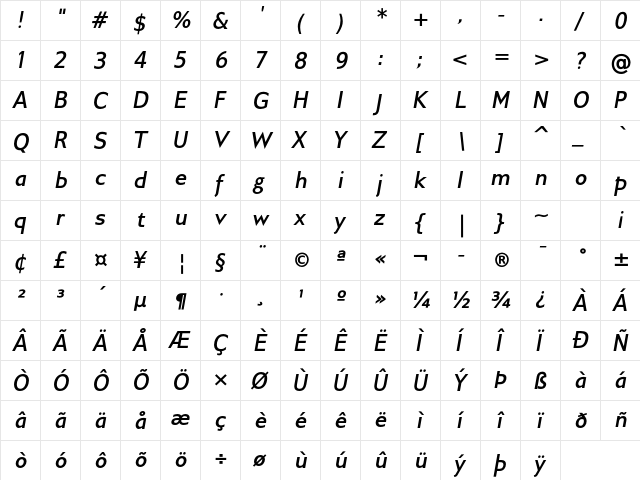
Gillius ADF Bold Italic
Design Context for Gillius ADF Typeface
Gillius ADF offers clean, dependable letterforms without strong stylistic allegiance, making it a practical choice for designers who need flexibility. The slanted form adds forward momentum and visual energy. Its bold stroke weight gives it real presence on the page.
Pro Tip: Use Gillius ADF for emphasis, pull quotes, and subheadings where its slanted energy can add rhythm to the layout.